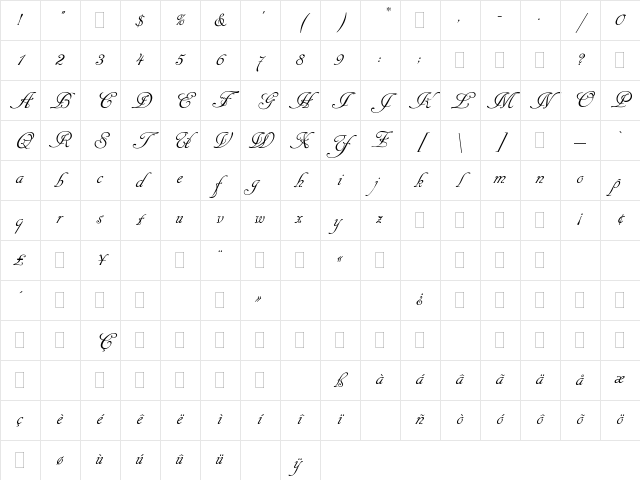
CancellarescaScriptPlain Regular Free Font
CancellarescaScriptPlain Regular
Design Context for CancellarescaScriptPlain
CancellarescaScriptPlain flows with the natural rhythm of handwritten lettering, making it ideal for designs that call for warmth and personal expression.
Font Pairing: Combine CancellarescaScriptPlain with a simple geometric sans for maximum contrast - the tension between flowing curves and clean structure is a classic typographic pairing.
Pro Tip: Use CancellarescaScriptPlain for short runs of text - names, titles, or taglines. Extended body copy in script faces tires the eye quickly.